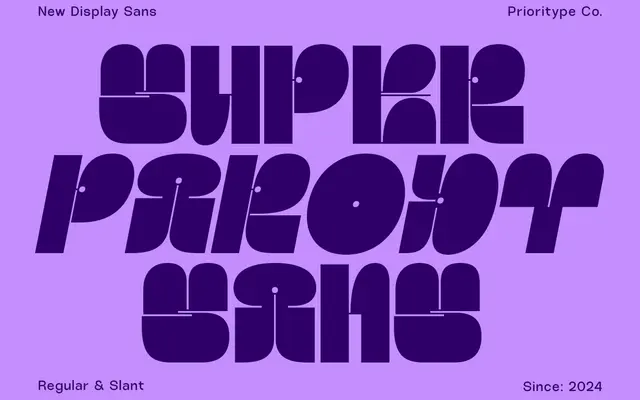
Super Parody – Retro Display Sans
Prioritype · 2024
A bold retro display sans in two styles, Regular and Slant, aimed at poster, branding and headline work with a vintage feel.
Super Parody offers two cuts, Regular and Slant, both built around chunky letterforms with contrasting strokes that nod to display type from the 1960s through to the 1990s. The character set covers uppercase, lowercase, numerals and punctuation alongside a wide range of Latin-based languages. Suited to posters, merchandise and social media graphics where a retro aesthetic is the priority.
A bold display sans with retro styling and high contrast details, available in regular and slanted cuts, designed for headlines and branding rather than text setting.